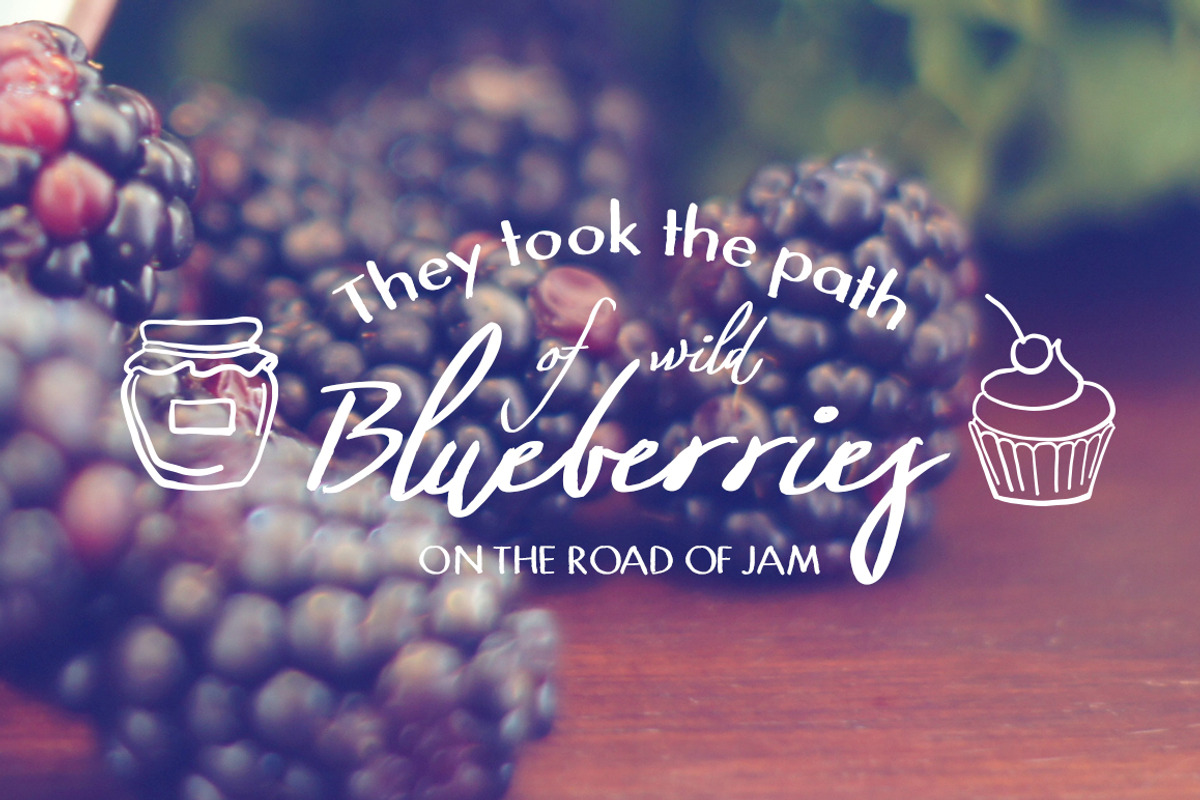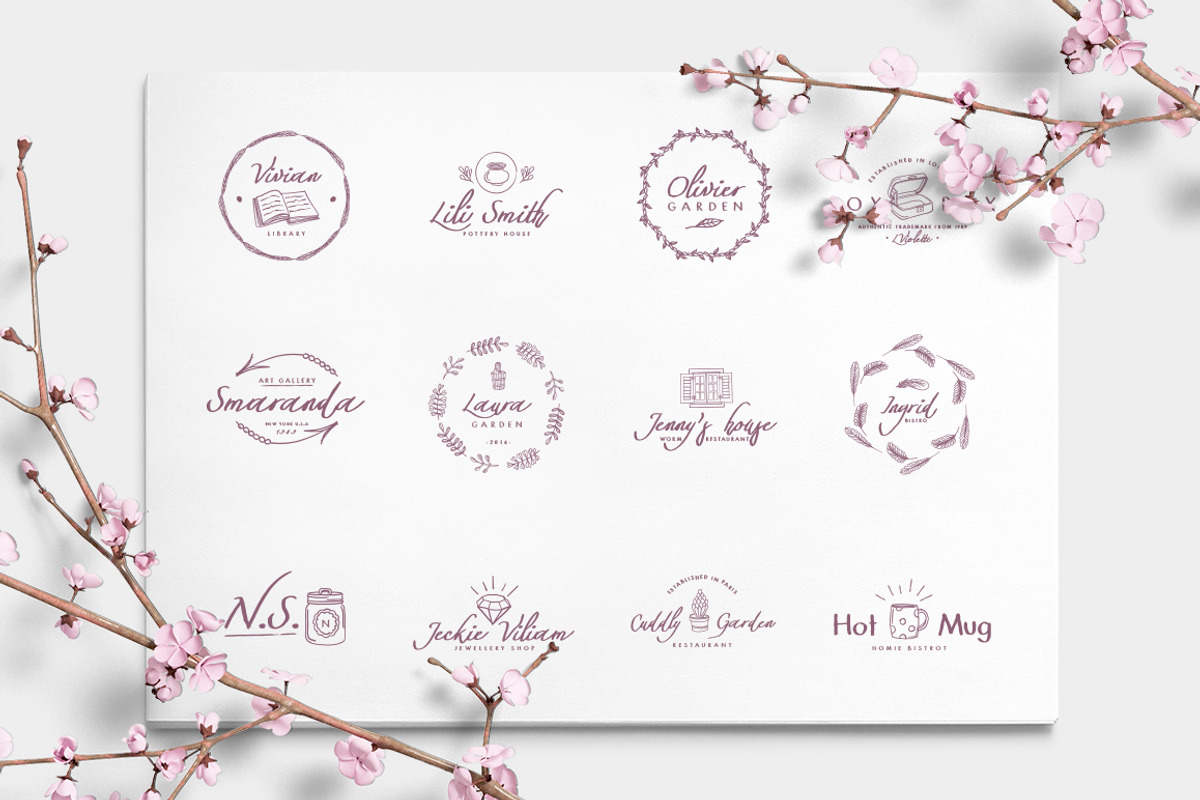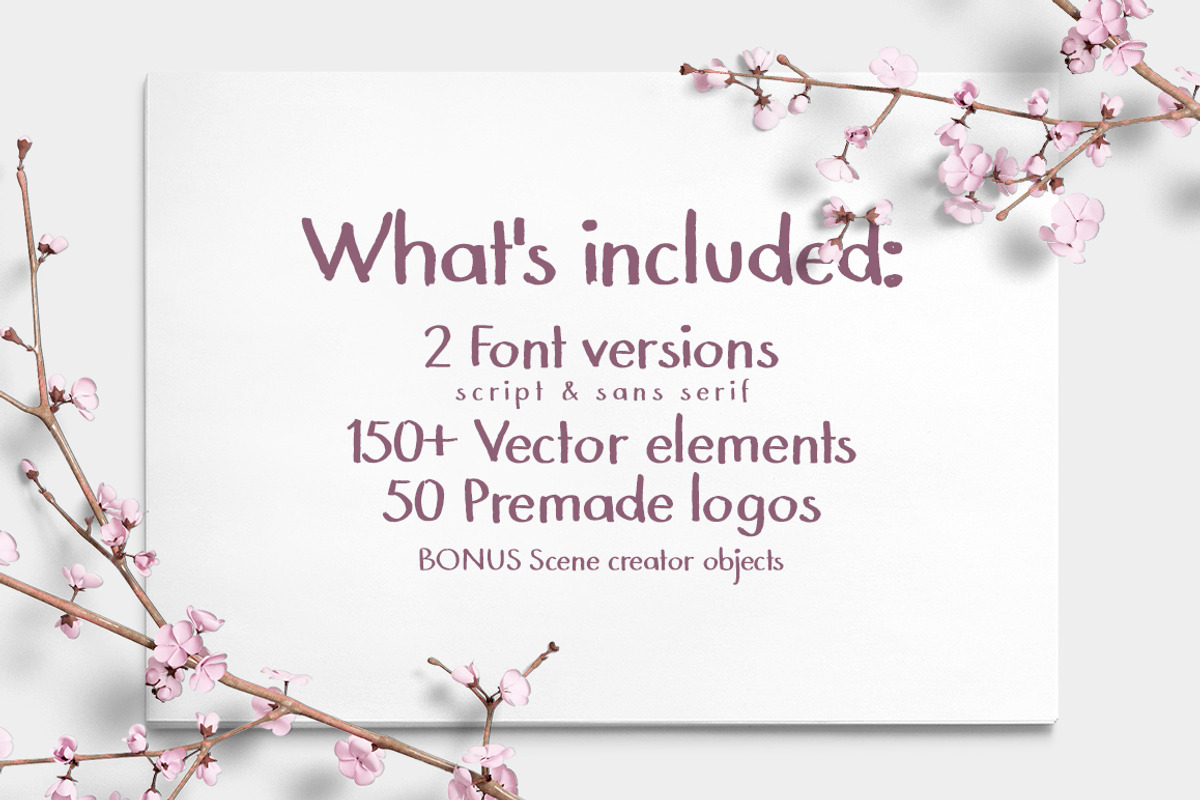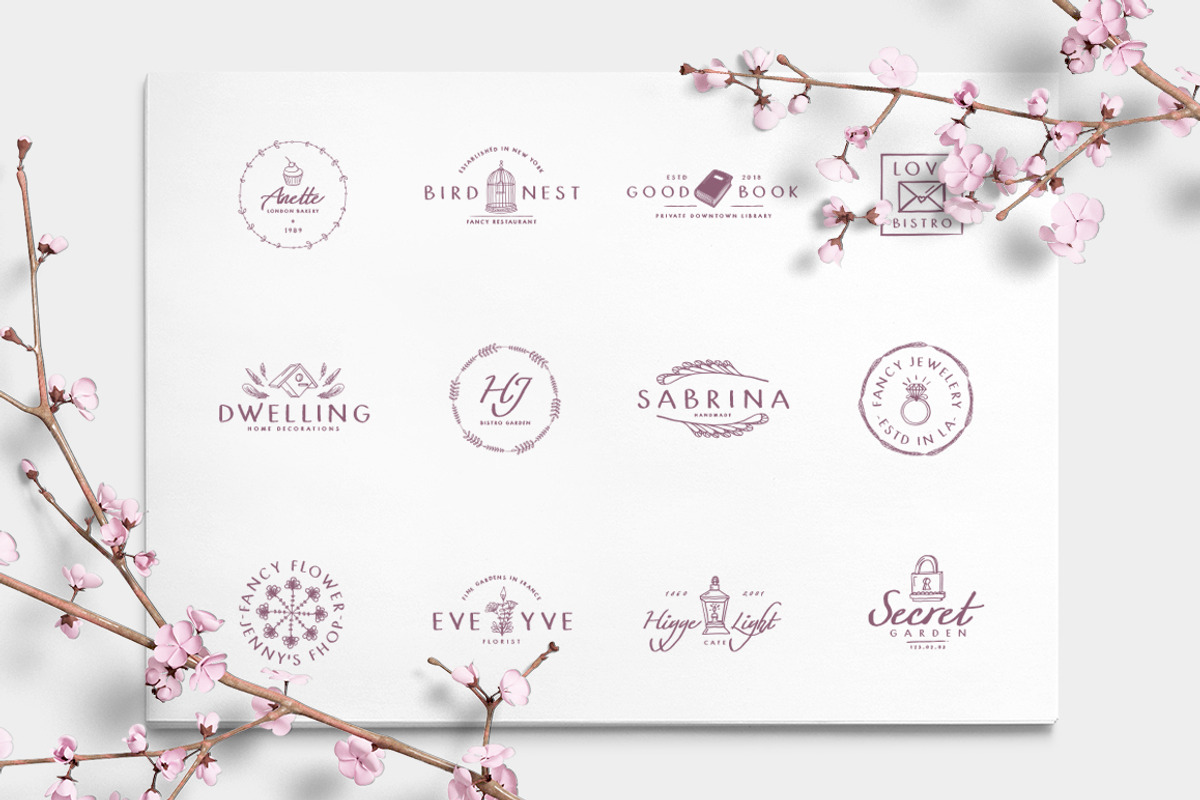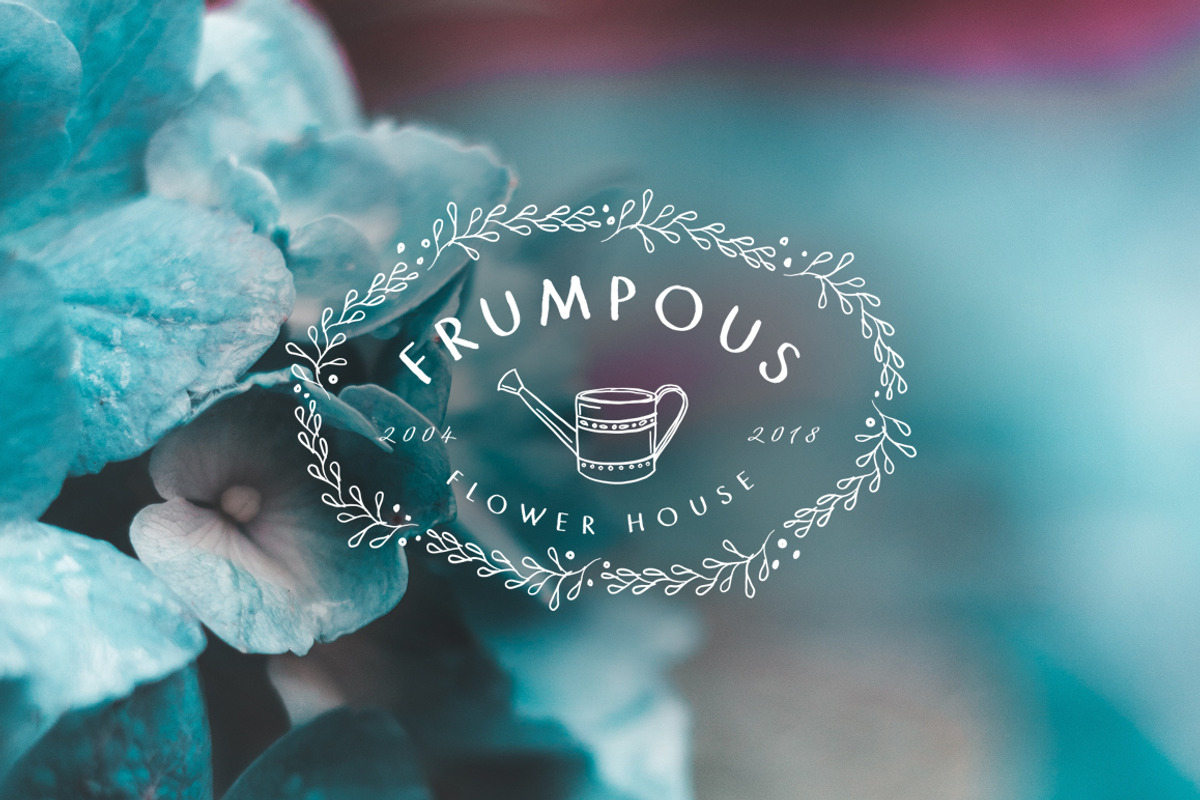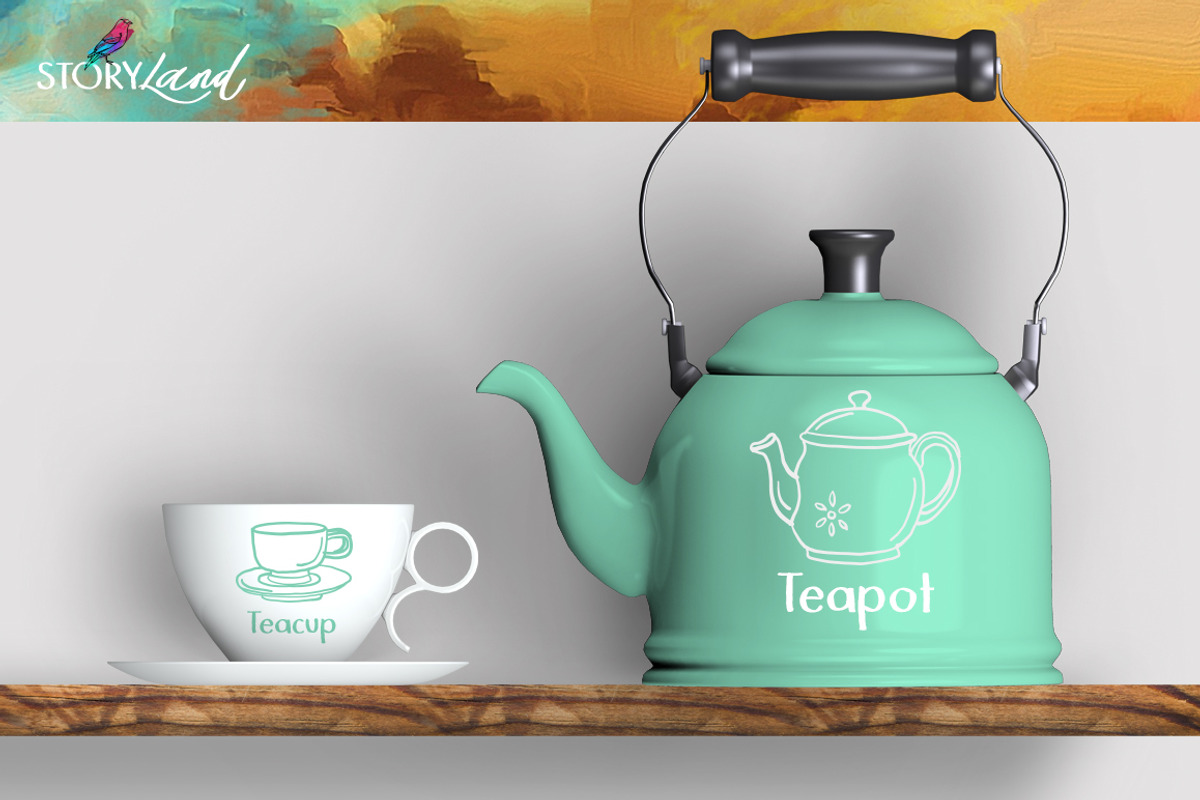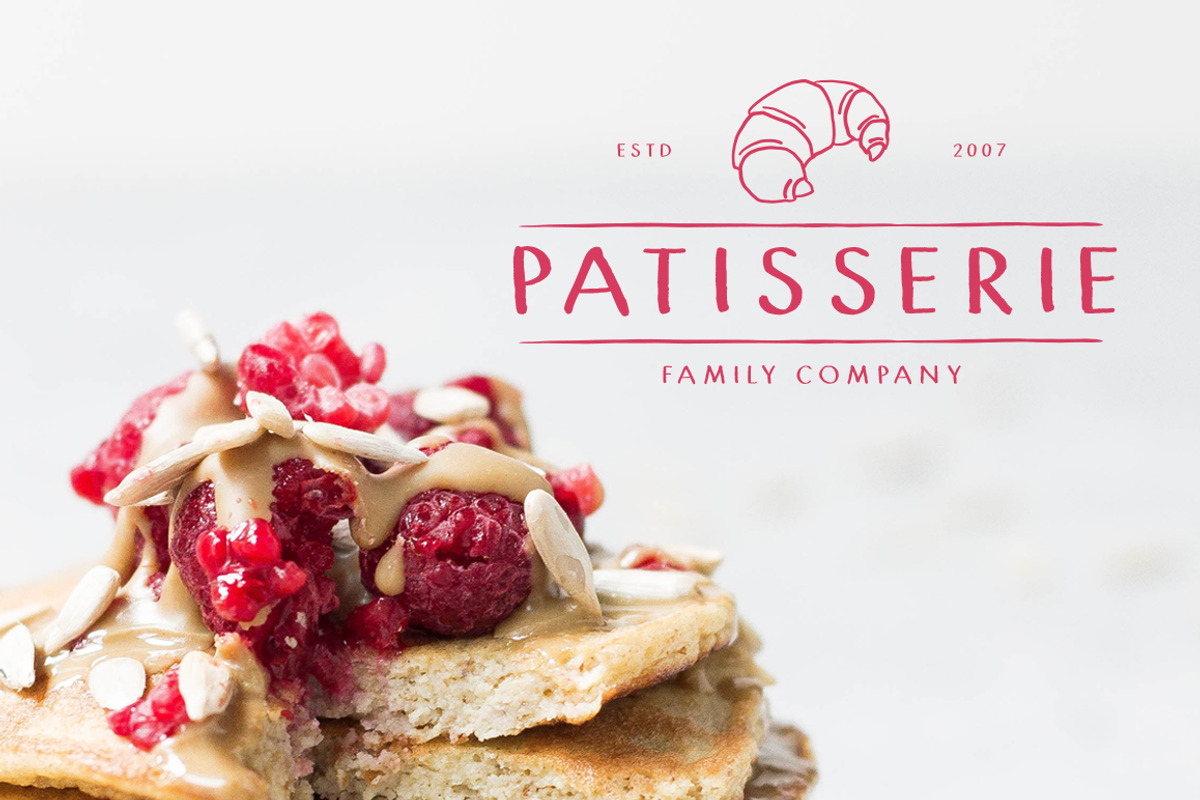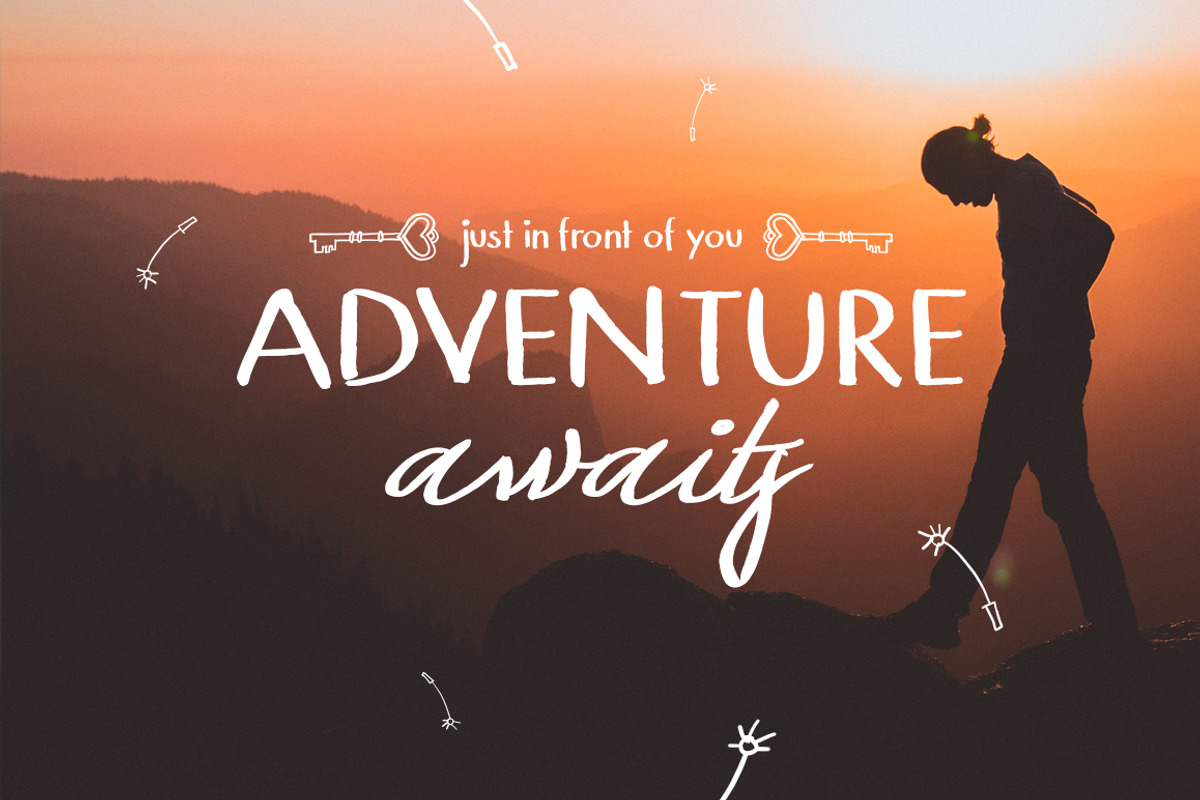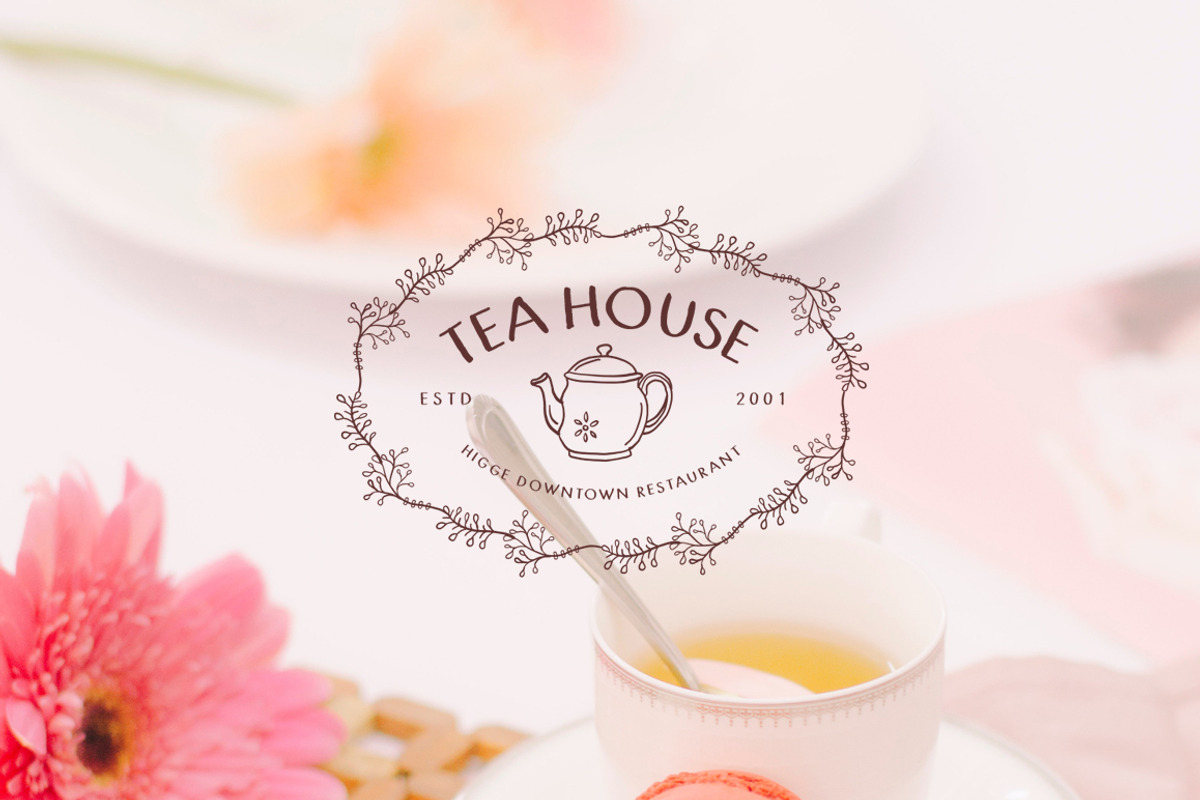
Storyland Font & Toolkit
Hello everyone! This is Storyland, our wolderful toolkit that consists of 2 fonts and more than 150 vector elements, all hand drawn! And to top it all of we included 50 premade logos that you can use as they are for your website, prints or business or you can mix and create even more logos!
Storyland features:
- 2 fonts - script & sans serif (.ttf) - includes numerals and punctuation
- 150+ hand drawn vector elements (vectors in Illustrator)